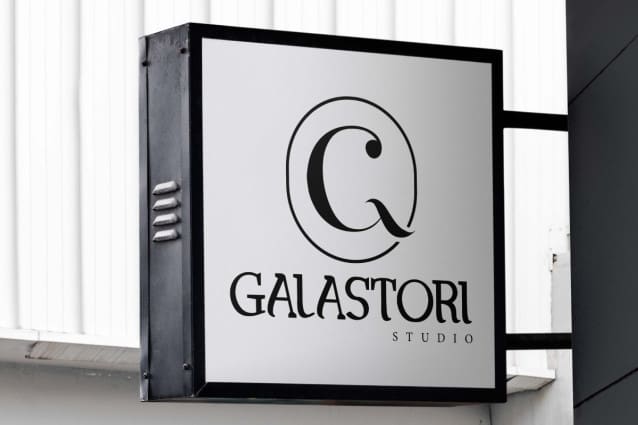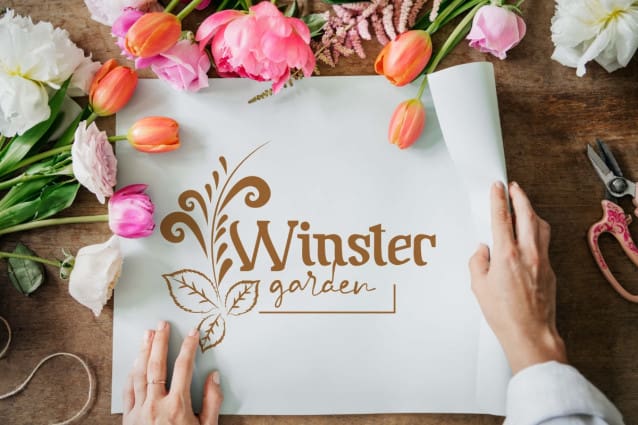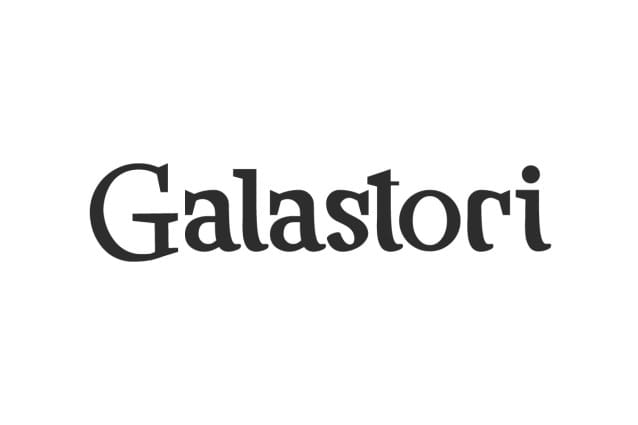
Galastori Font
Galastori Font is a playful serif display font with a fun twist. It will be a versatile addition to your business, such as author, café, children’s education, clothing brand, fashion, florist garden, furniture, handicrafts, ornamental plant, photography, printing, publishing, retail, skincare, wedding, writer, and many more.
Galastori Font includes full set of Uppercase and Lowercase Basic Characters, Number, Punctuation, and Symbol. It’s casual shape with a different touch creates a unique look that will make your design stand out, such as blog, magazine cover, header, invitation, label, pamphlet, poster, product packaging, quote, screen print, signage, stationery, sticker, title, website, etc.